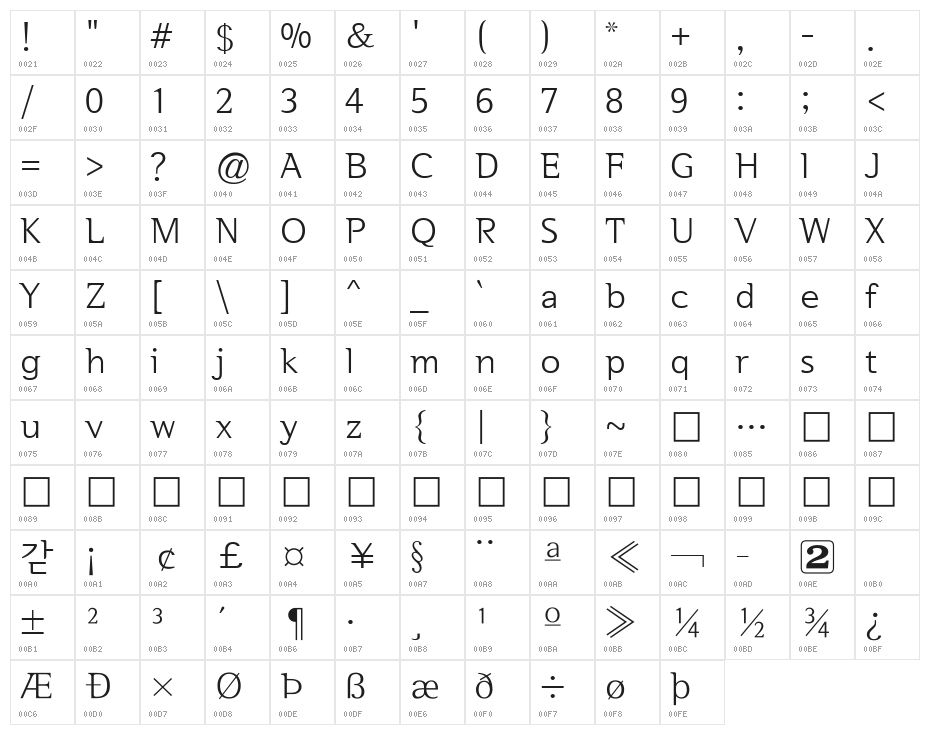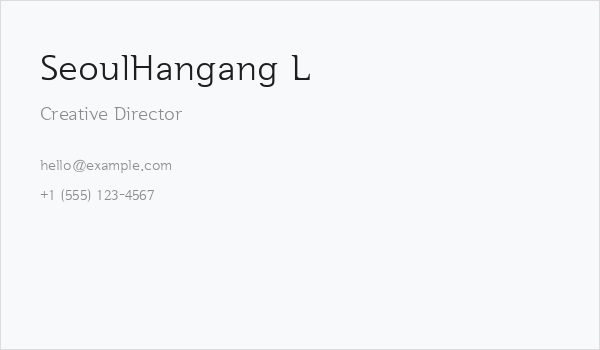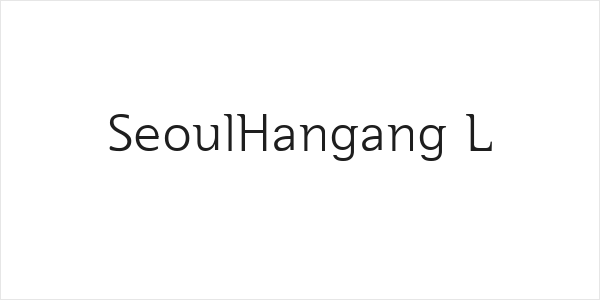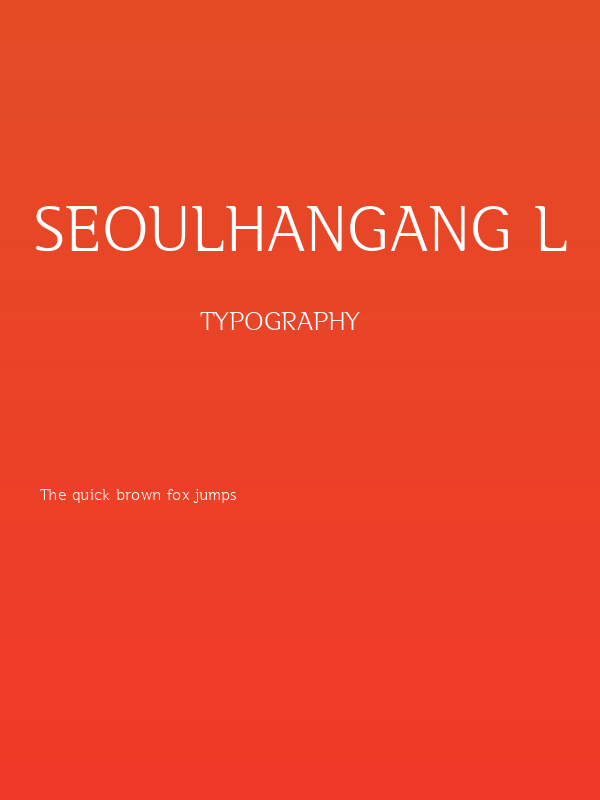
SeoulHangang L Font
SeoulHangang L Description
This font features a clean and modern sans-serif design with a balanced and harmonious appearance. The characters are well-proportioned, offering a sleek and professional look. The uppercase letters are slightly taller than the lowercase, providing a clear distinction. The numerals are uniform and easy to read, while the special characters are designed to complement the overall style. The strokes are consistent, with a medium contrast that adds to its legibility. This font is versatile, suitable for both digital and print media, making it ideal for a wide range of applications.